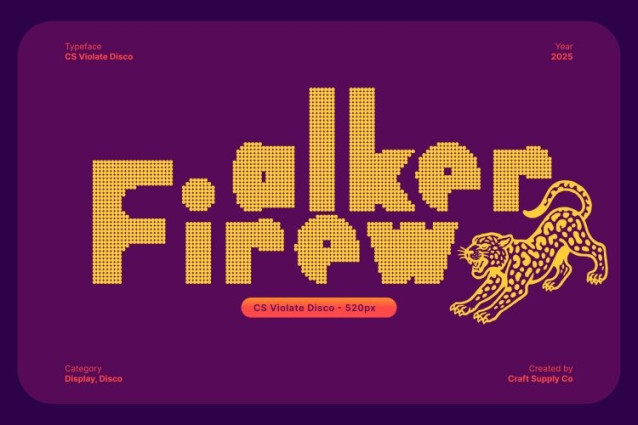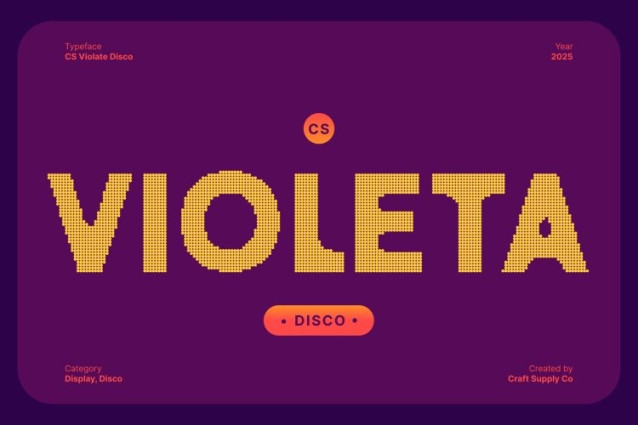
CS Violeta Disco Font This font brings the warmth and charm of classic retro display typography into the modern era. Designed with bold silhouettes and playful curves, this typeface instantly captures the nostalgic spirit of retro design. Its strong presence and distinct shapes make it perfect for designers who want to evoke familiarity, fun, and personality in their work.
Glamorous Disco Shine for Extra Visual Impact
What makes this font stand out is its stylish disco effect a shimmering texture that adds glamour, energy, and a radiant glow. The sparkling finish transforms each character into a lively visual element that shines on any layout. This added sparkle brings a sense of motion and excitement, making the font ideal for designs that need a high-impact, eye-catching identity.
Perfect for Branding, Posters, and Retro Campaigns
Whether you’re working on nostalgic branding, vibrant posters, this font offers the perfect combination of style and versatility. Ideal for titles, event promotions, packaging, logos, and visual storytelling, this font brings charm and shine to every project.
A Playful Yet Professional Choice for Creative Projects
This font blends expressive retro styling with a polished, modern finish, making it suitable for a wide range of creative applications. It’s bold, fun, and full of personality yet still maintains a professional structure that ensures readability and balance.